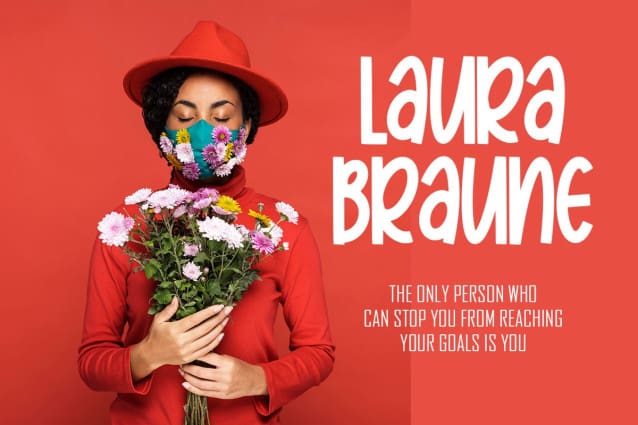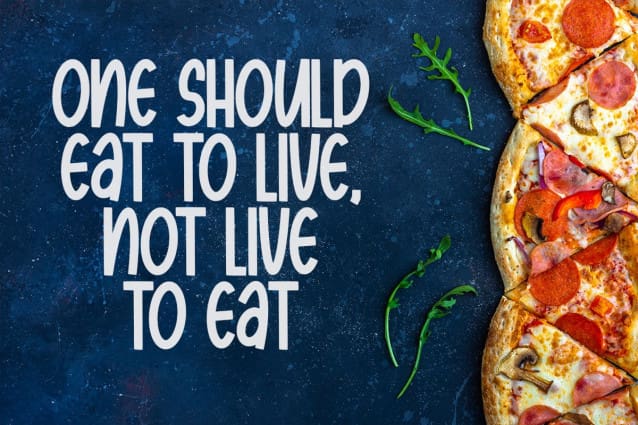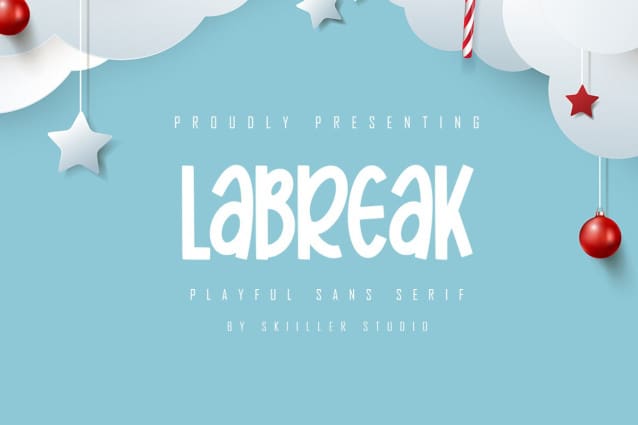
Labreak Display Font
Labreak Display Font – Playful sans serif font. It has a elegant, classy look and modern. It’s a great font for fashion, signature, logo, magazine, social media.